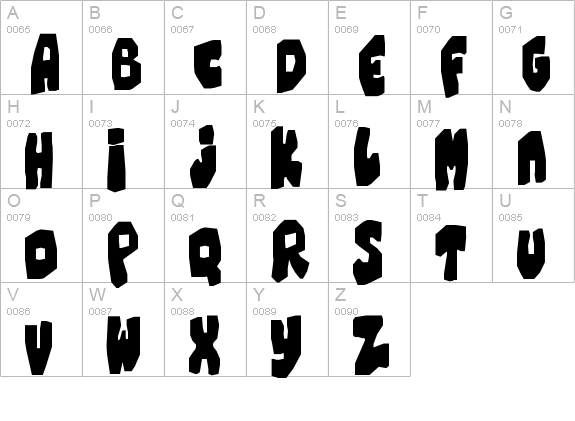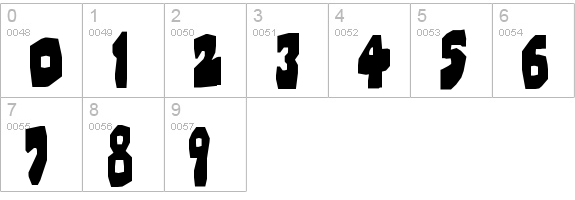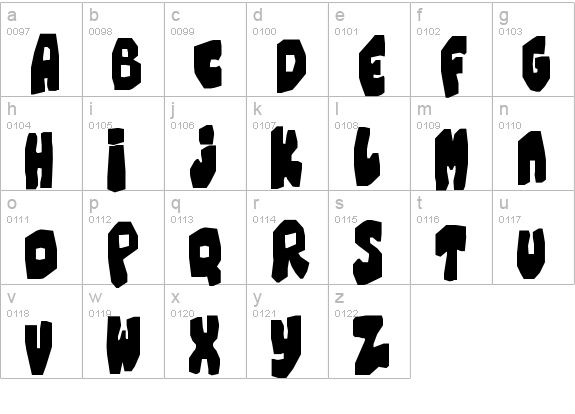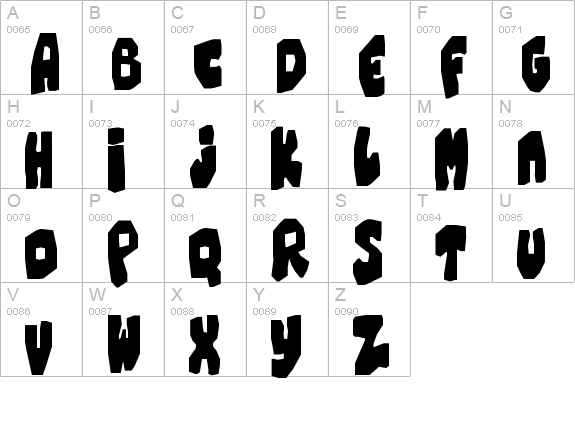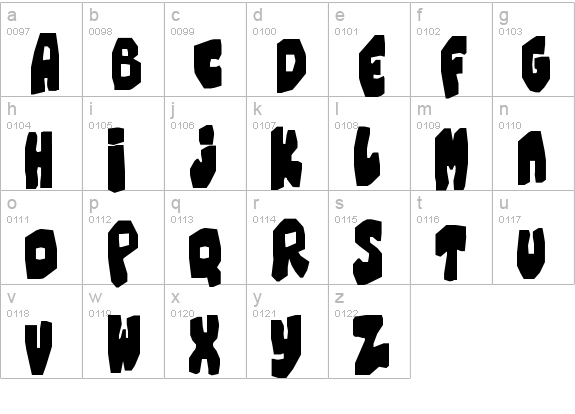
Chunky Cheese Font Details
Chunky Cheese font is a whimsical and playful typeface that exudes a sense of fun and creativity. With its chunky and bold lettering, this font is perfect for adding a touch of personality to your designs. Whether you're working on a poster, logo, or branding project, Chunky Cheese font will surely make your text stand out.